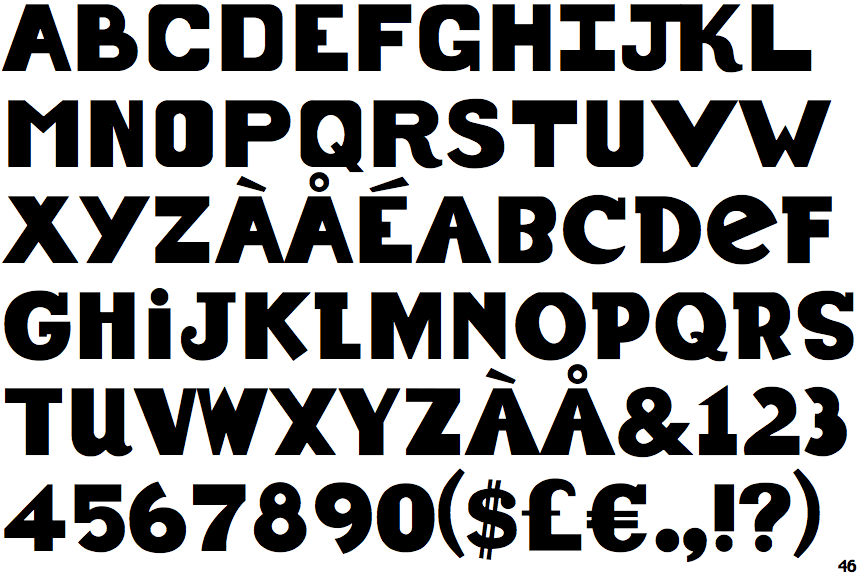
Bad Typ
Based on the worst examples of sign painting and amateur lettering.
Designer: Leslie Cabarga Year: 1993 Publishers: CabargaType and Font Bureau No lower-case characters. |
The upper-case 'W' vertices are pointed at the top, flat at the bottom.
Based on the worst examples of sign painting and amateur lettering.
Designer: Leslie Cabarga Year: 1993 Publishers: CabargaType and Font Bureau No lower-case characters. |